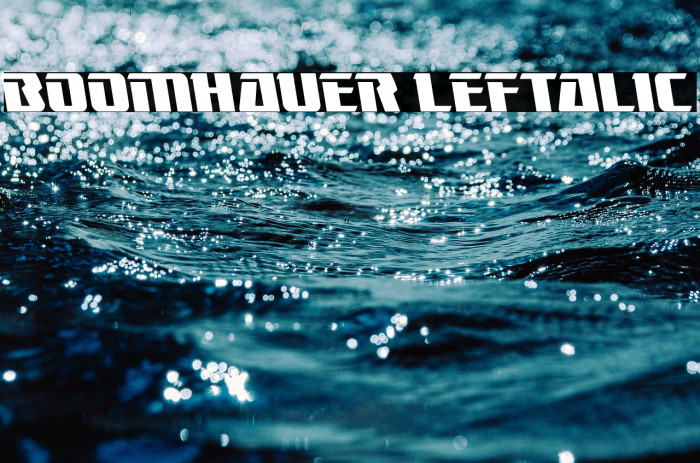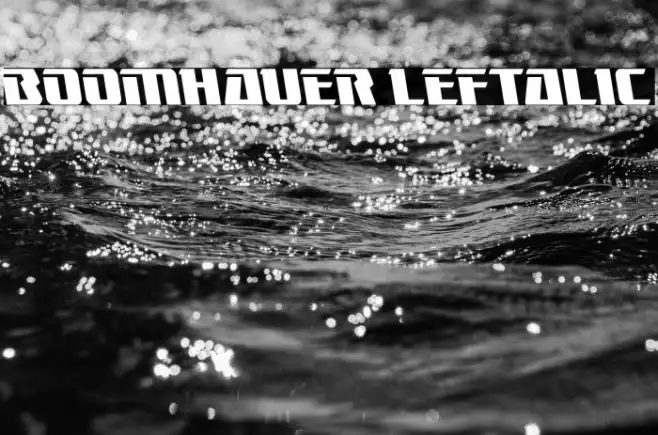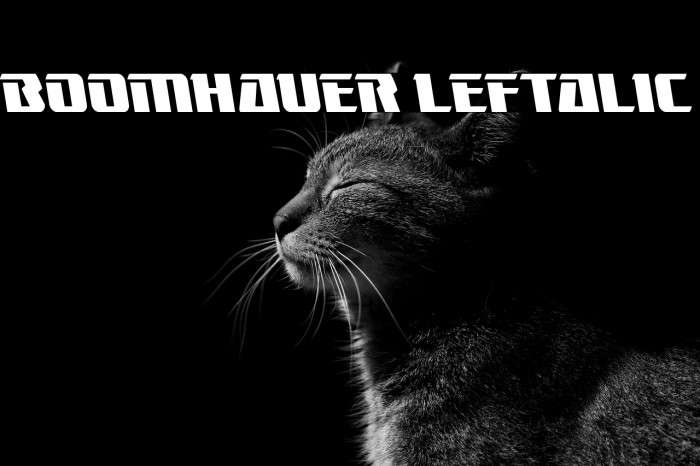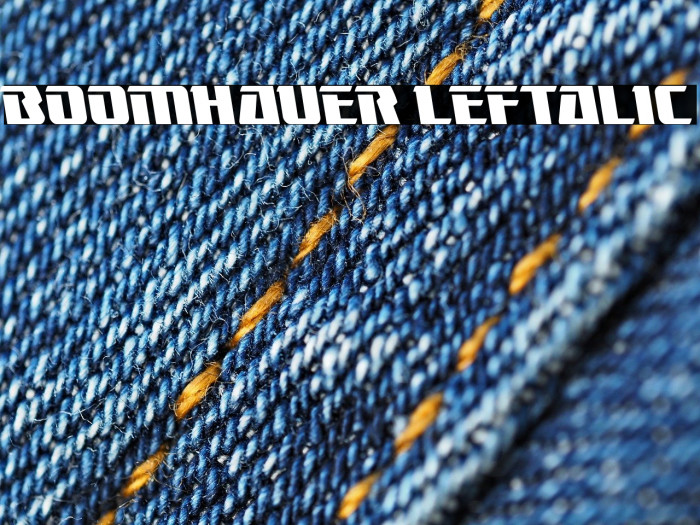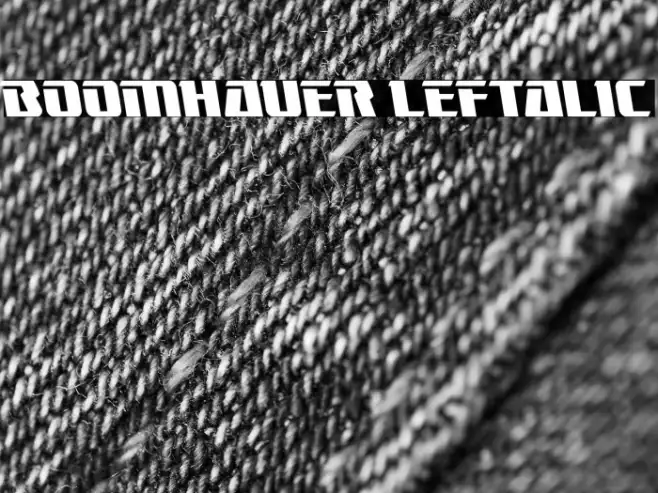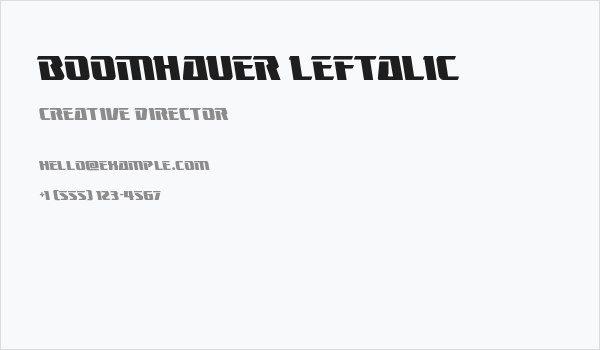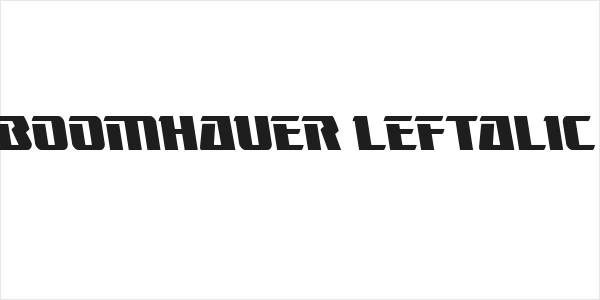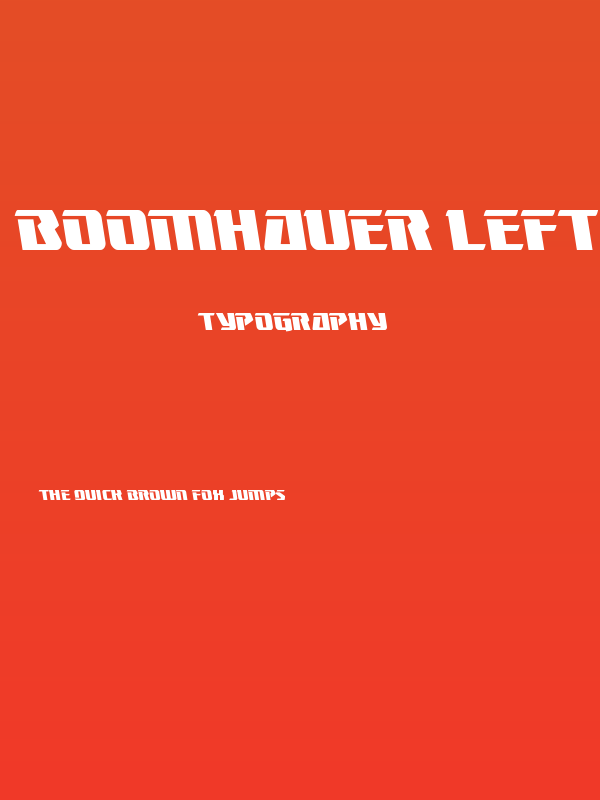
Boomhauer Leftalic Font
Boomhauer Leftalic Description
This font features a bold and dynamic design with a distinct slant to the left, giving it a sense of motion and energy. The characters are blocky and geometric, with sharp angles and a futuristic aesthetic. The uppercase and lowercase letters maintain a consistent style, while the numbers and special characters complement the overall look. The font's thick strokes and solid presence make it ideal for attention-grabbing designs.
| Proposed Projects | Ideal for sports branding, video game titles, posters, and any project requiring a bold, dynamic look. |